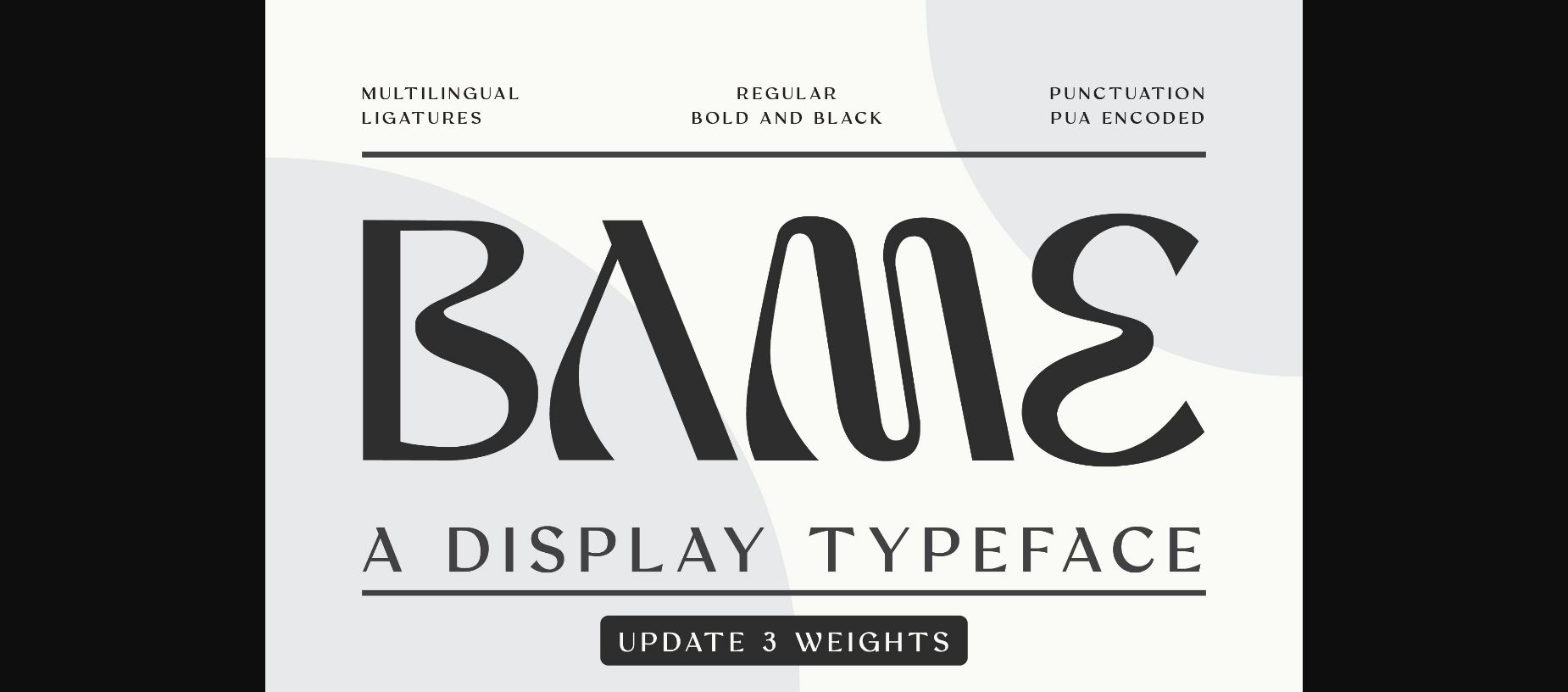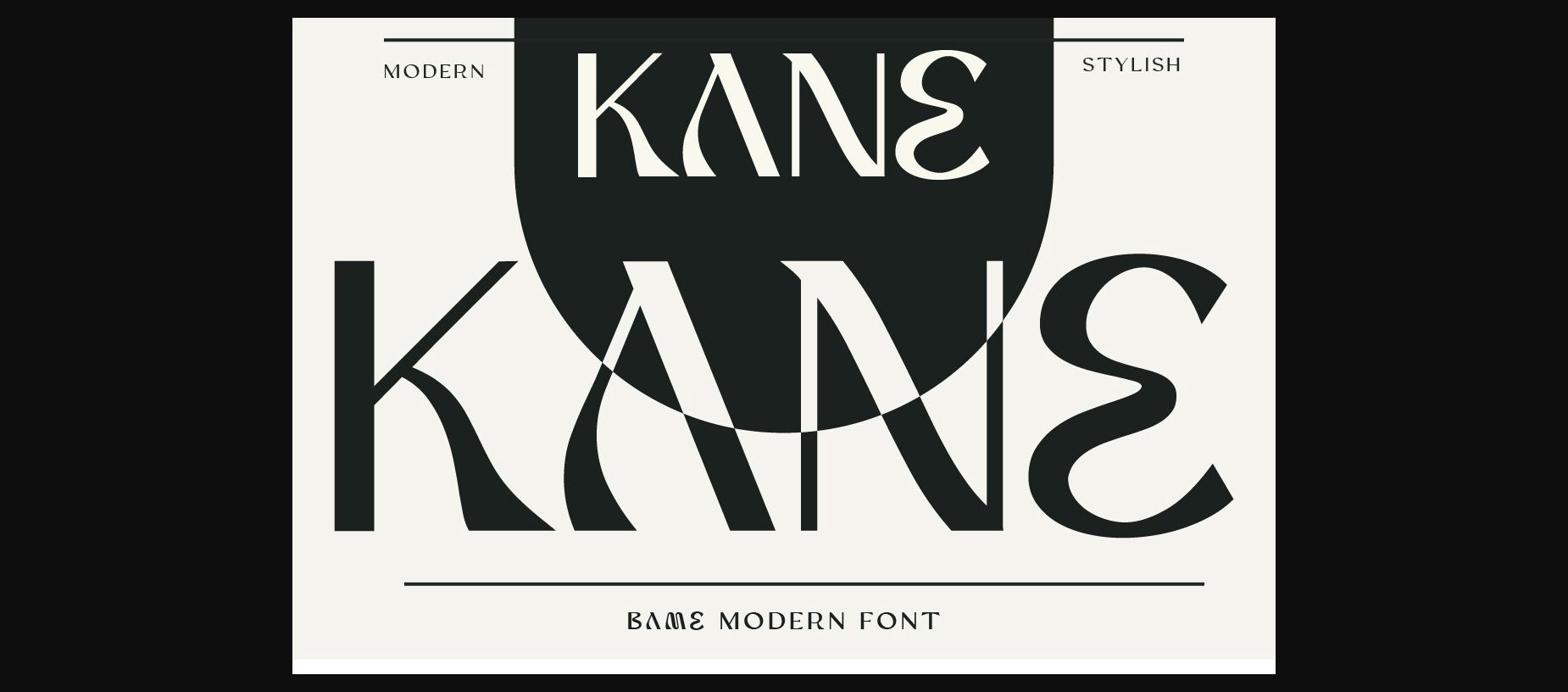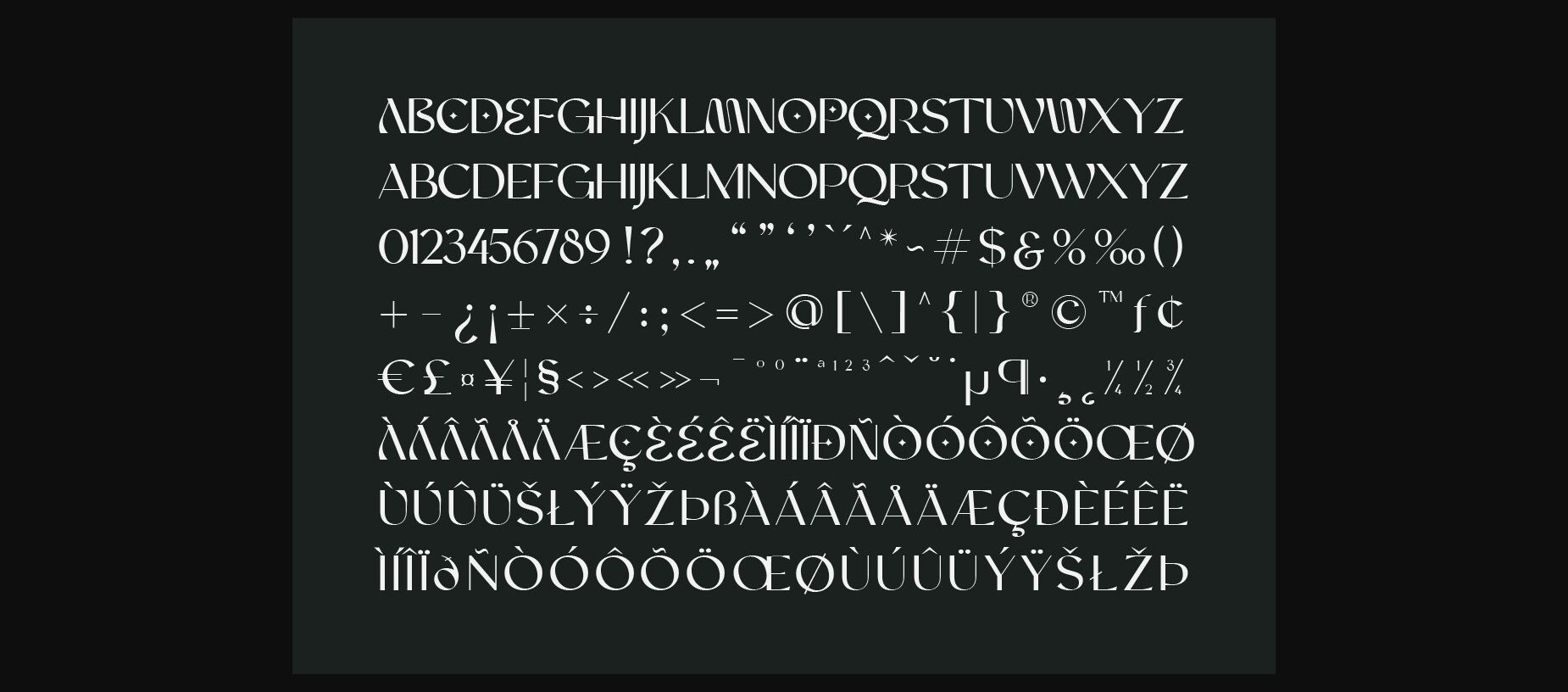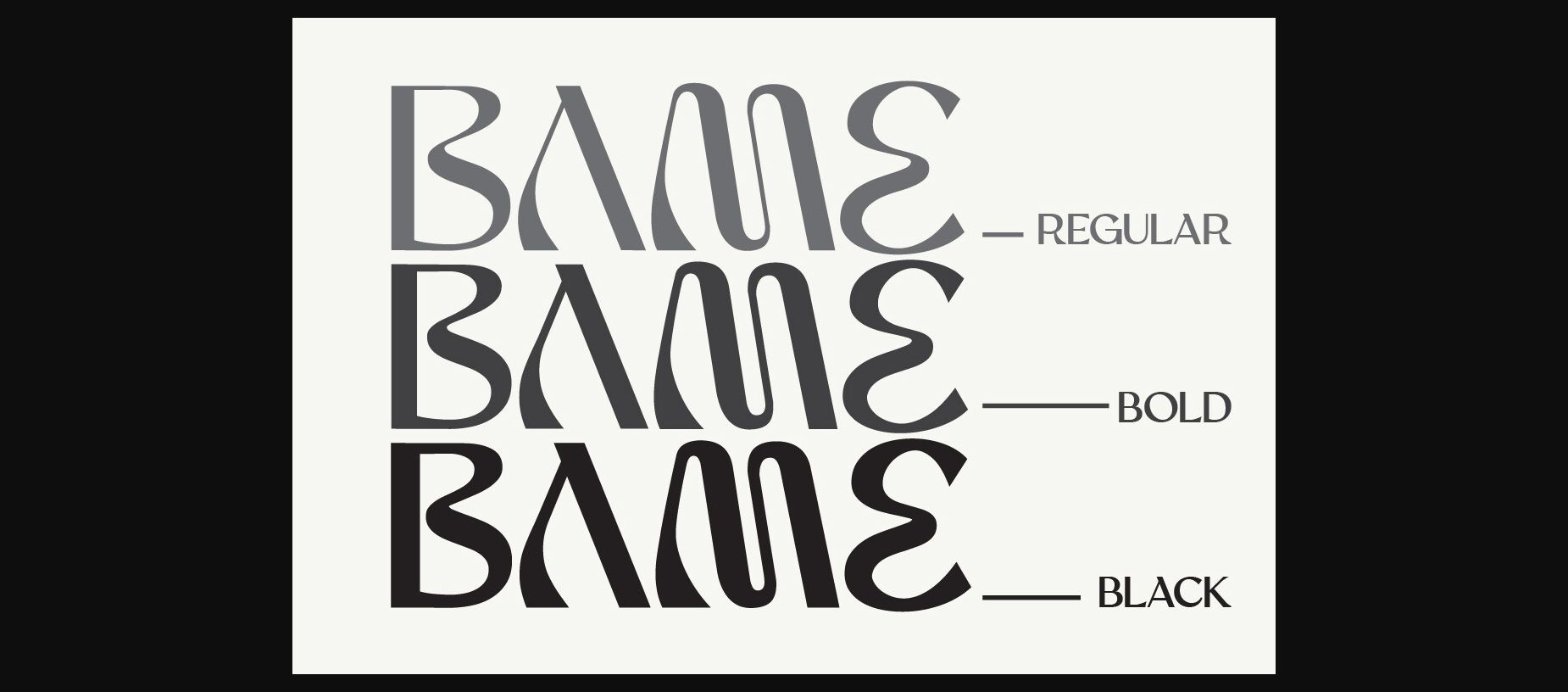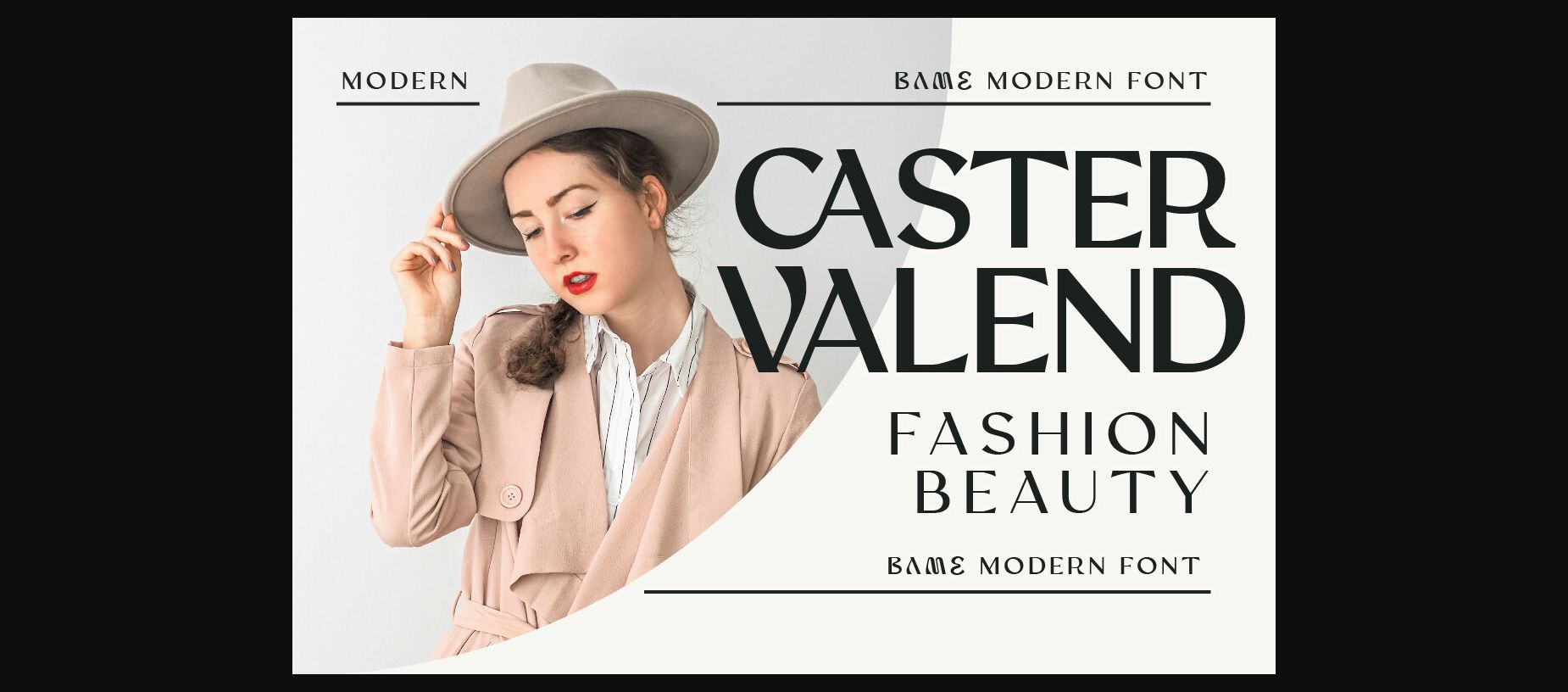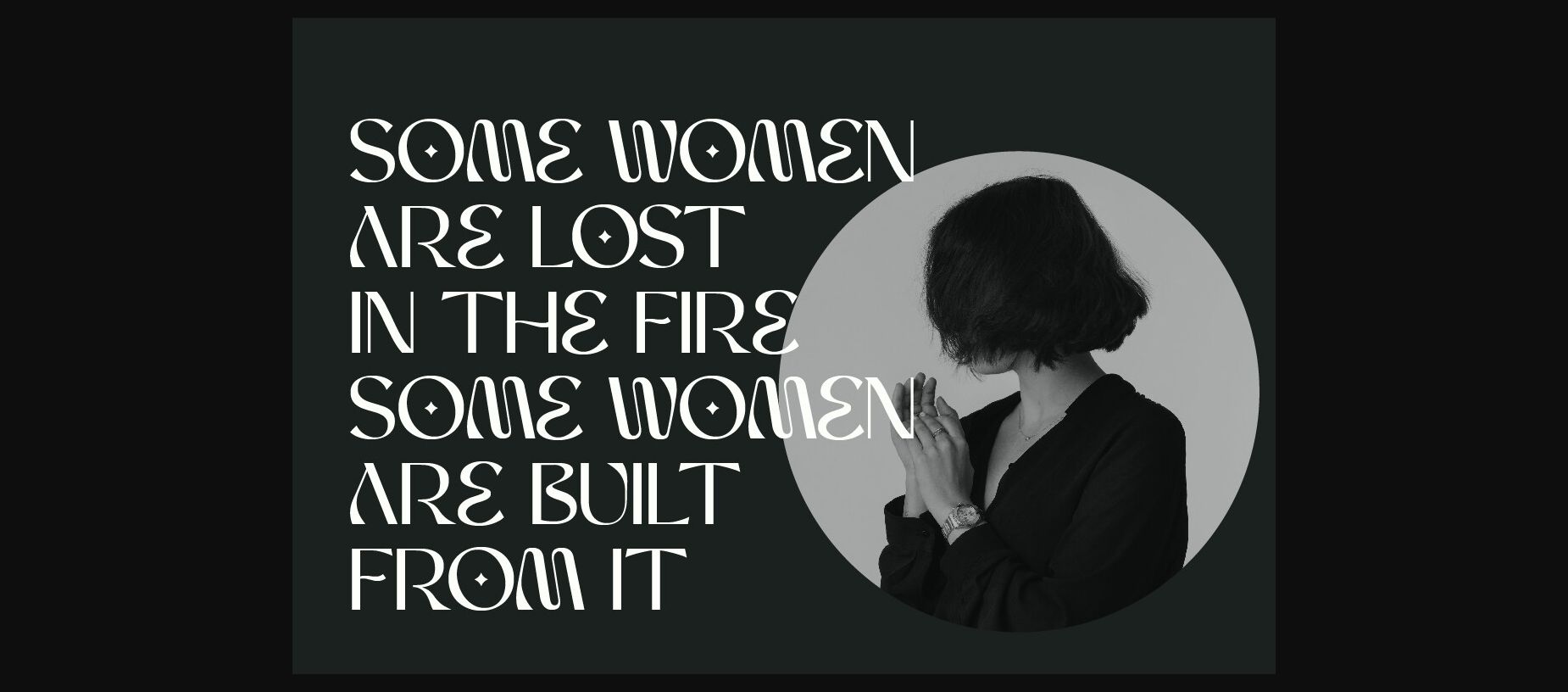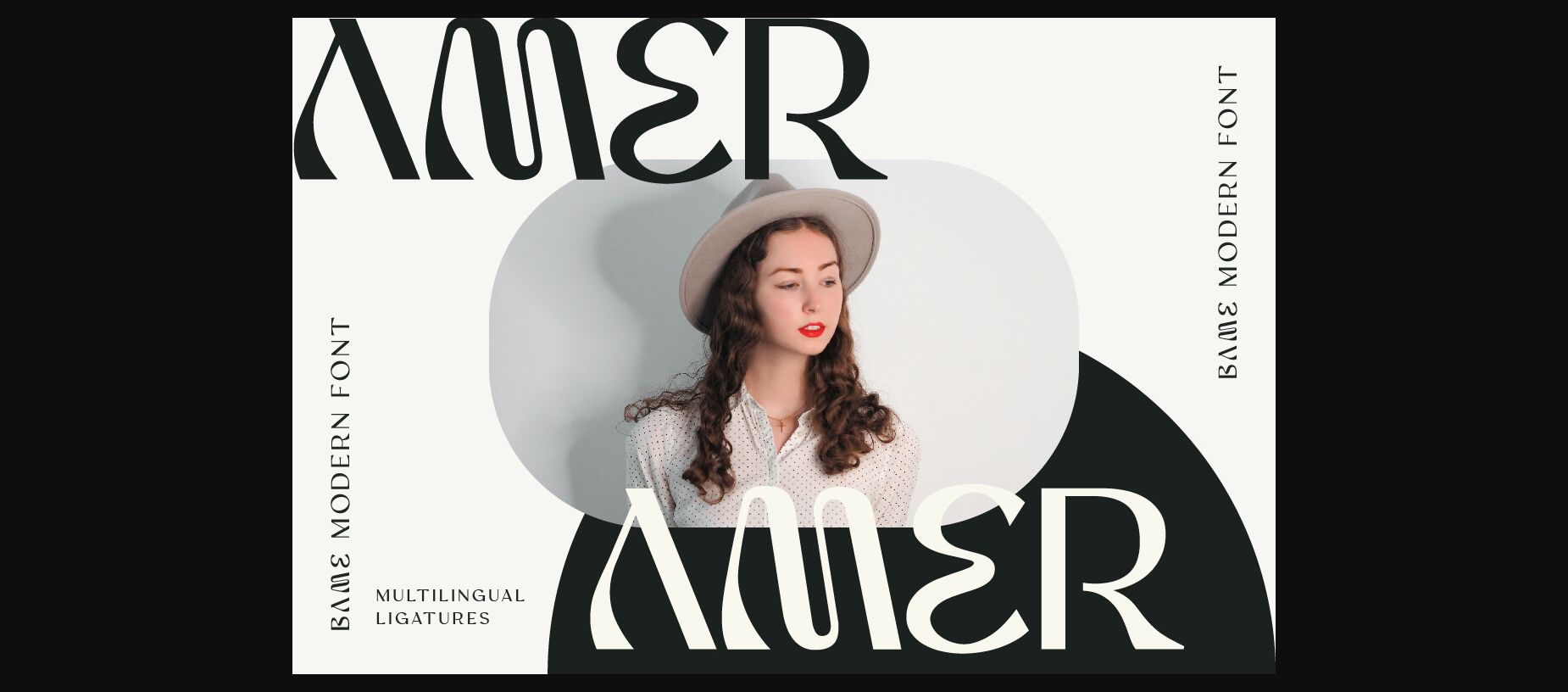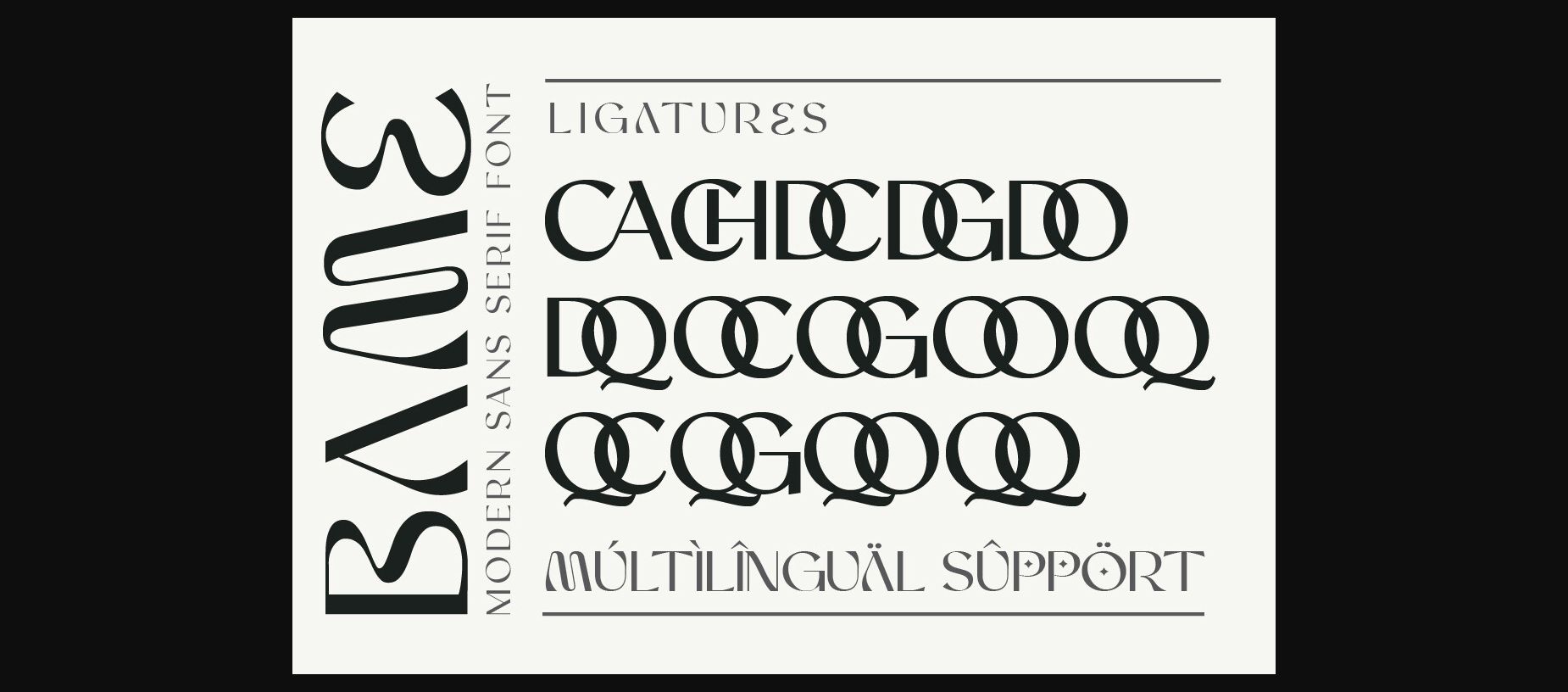
HomeSans Serif FontsBame Font Sans Serif Fonts Bame Font FacebookTwitterPinterestWhatsApp 1 of 11 ... Bame Font Poster 2... Bame Font Poster 3... Bame Font Poster 4... Bame Font Poster 5... Bame Font Poster 6... Bame Font Poster 7... Bame Font Poster 8... Bame Font Poster 9... Bame Font Poster 10... Bame Font Poster 11... About Bame Font Bame is a display serif typeface that has 3 weights and a distinct curve and a lively personality. It is ideal for projects that require a distinct personality. DOWNLOAD NOW People also explored Ralalla Font Salista Font Hello Catty Font Converta Font Resmice Font So Much Love Font Arkina Duo Font Dormitory Font Black and Violet Font 172 0 TagsBameBame Font Previous articleDarcman Knockout FontNext articleVinky Font LEAVE A REPLY Cancel reply Comment: Please enter your comment! Name:* Please enter your name here Email:* You have entered an incorrect email address! Please enter your email address here Website: Save my name, email, and website in this browser for the next time I comment. Personal Use Free Planning Personal Use Free Read more about this font Muthiara Font Personal Use Free Read more about this font Batik Classic Personal Use Free Read more about this font Manbow Personal Use Free Read more about this font BLOG Free Fonts Risk: Why Free Fonts Can Be Dangerous for Designers Free Fonts Risk: Why Free Fonts Can Be Dangerous for Designers Using free fonts is a common practice in web and graphic design. However, the... Elegant Wedding Invitation Fonts – Handwritten & Script Fonts Free vs Paid Fonts: Why Investing in Premium Fonts Is Worth It Best Fonts for T-Shirt Design – Top 2025 Picks